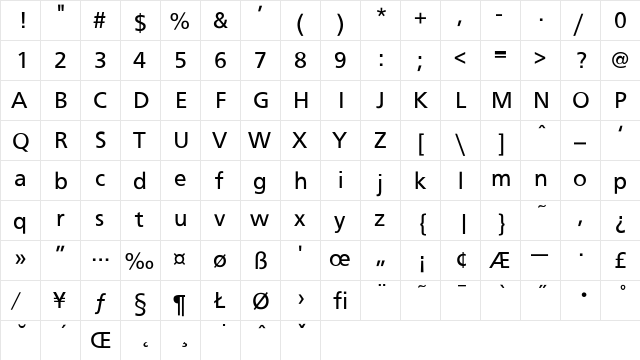
Briar Banks Regular
Design Context for Briar Banks Typeface
Briar Banks is a composed and adaptable typeface that performs quietly and consistently across a wide range of design contexts.
Pro Tip: Use Briar Banks in both headline and body roles to test its range before committing to a single application.